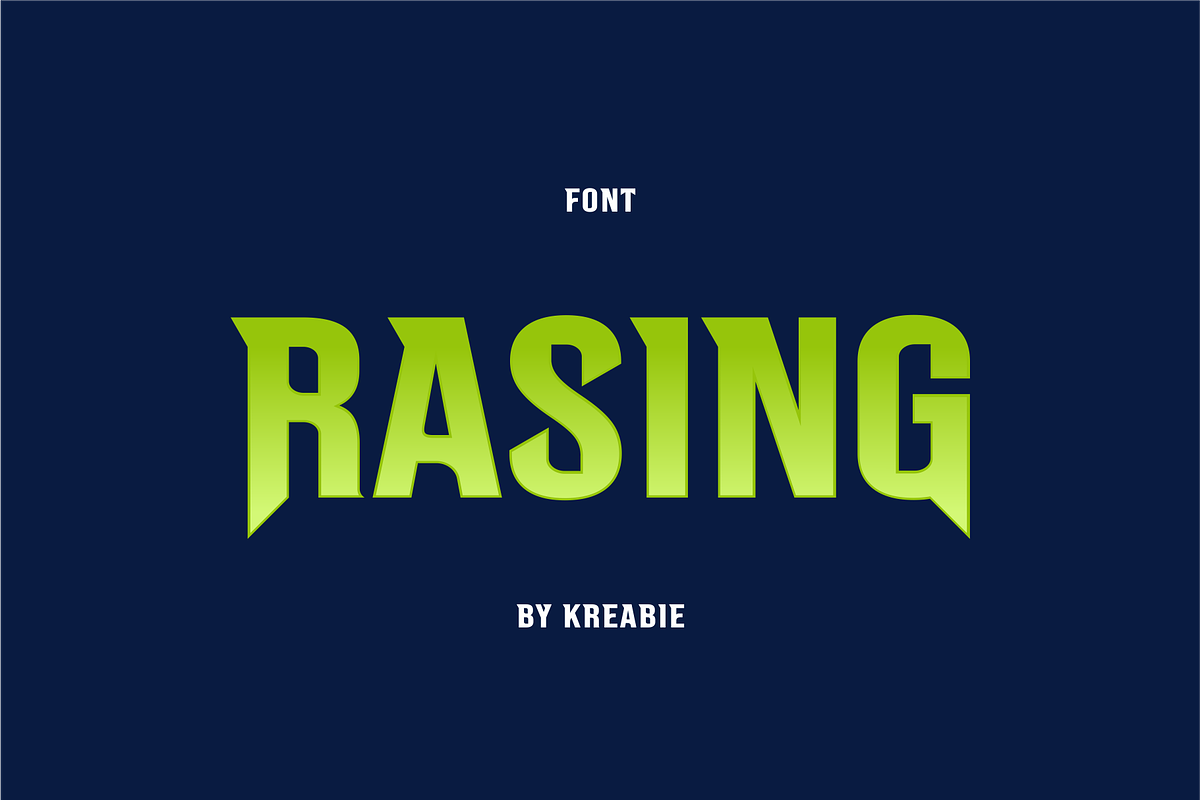
Rasing Font Free Download is a bold, modern display typeface crafted to make a strong visual impact. With its sharp angles, clean lines, and futuristic vibe, Rasing is perfect for headlines, logo designs, esports branding, tech-themed graphics, posters, and dynamic social media content.
Designed to stand tall and command attention, this font adds power and confidence to any layout. Whether you're creating a high-energy marketing piece or a sleek digital interface, Rasing delivers clarity with attitude.
It works great in both print and digital formats and is ideal for creatives who want to push their typography forward.